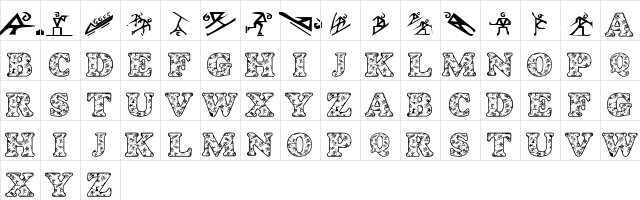
LMS Salt Lake's Olympic Events Regular Font Preview
LMS Salt Lake's Olympic Events Regular
Design Context for LMS Salt Lake's Olympic Events Typeface
LMS Salt Lake's Olympic Events is a composed and adaptable typeface that performs quietly and consistently across a wide range of design contexts.